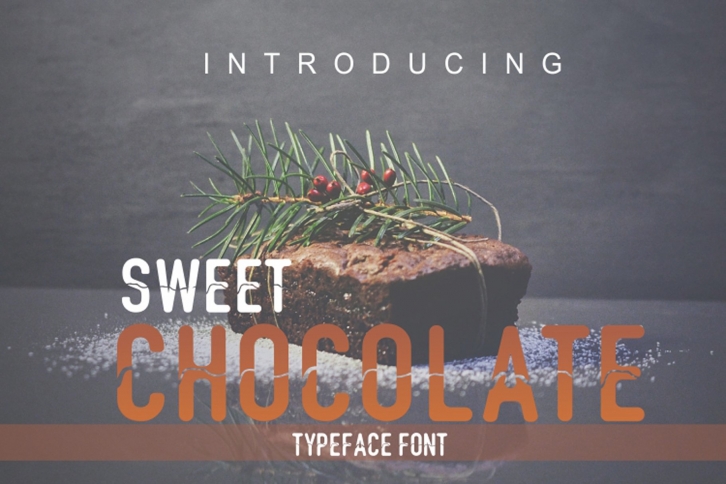
SWEET CHOCOLATE
Now we made a simple and cute font, perfect for those of you who want to write a note with cool ink strokes.
SWEET CHOCOLATE - A funny, cute character! it's perfect for logos, name cards, magazine layouts, invitations, headers, or even large-scale artwork.